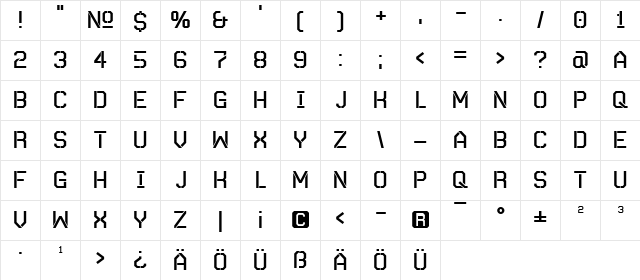
Autobahn Stencil Regular
| Designer | Simon Wiesmayr |
Design Context for Autobahn Stencil Typeface
Autobahn Stencil borrows the utilitarian aesthetic of stencil lettering, with its characteristic cutaways and no-frills construction lending an industrial edge.
Ideal for industrial branding, streetwear, military-adjacent aesthetics, and urban signage projects.
Pro Tip: Pair Autobahn Stencil with raw, utilitarian design elements — exposed concrete textures, flat colour, and minimal ornamentation suit it well.